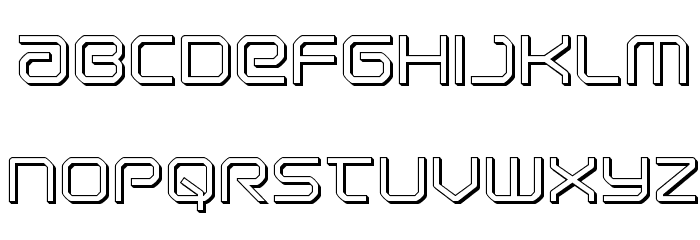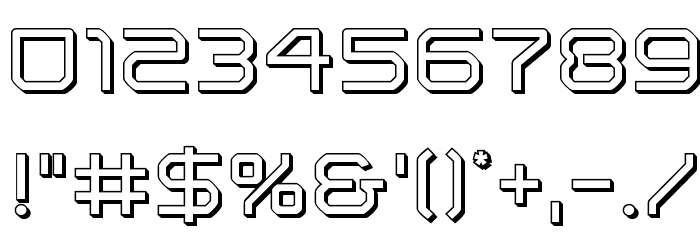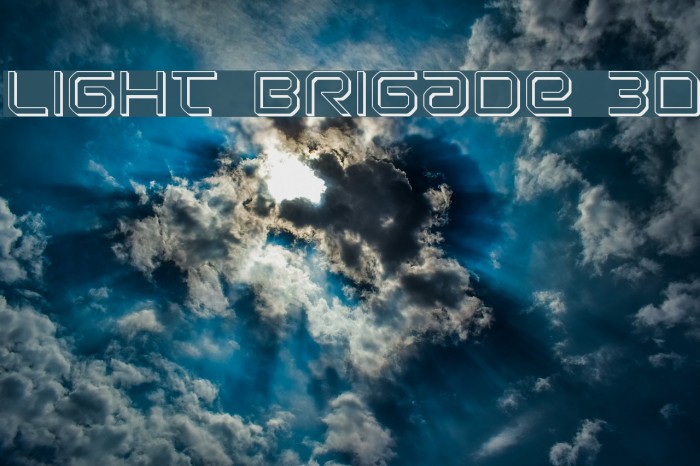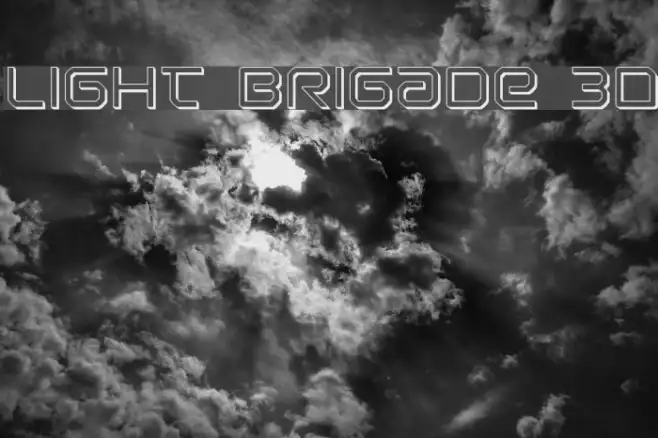
Light Brigade 3D Font
This font features a unique 3D outline style that gives each character a sense of depth and dimension. The geometric shapes are consistent throughout, creating a cohesive and modern appearance. The uppercase and lowercase letters maintain a uniformity that enhances readability, while the numerals and special characters are designed with the same attention to detail. The font's structure is clean and precise, making it suitable for a variety of design applications. Its futuristic and technical look is ideal for projects that require a contemporary and innovative touch.
A 3D outline font with a modern, geometric style.
- Proposed Projects: Ideal for technology branding, futuristic posters, video game titles, and digital interfaces.